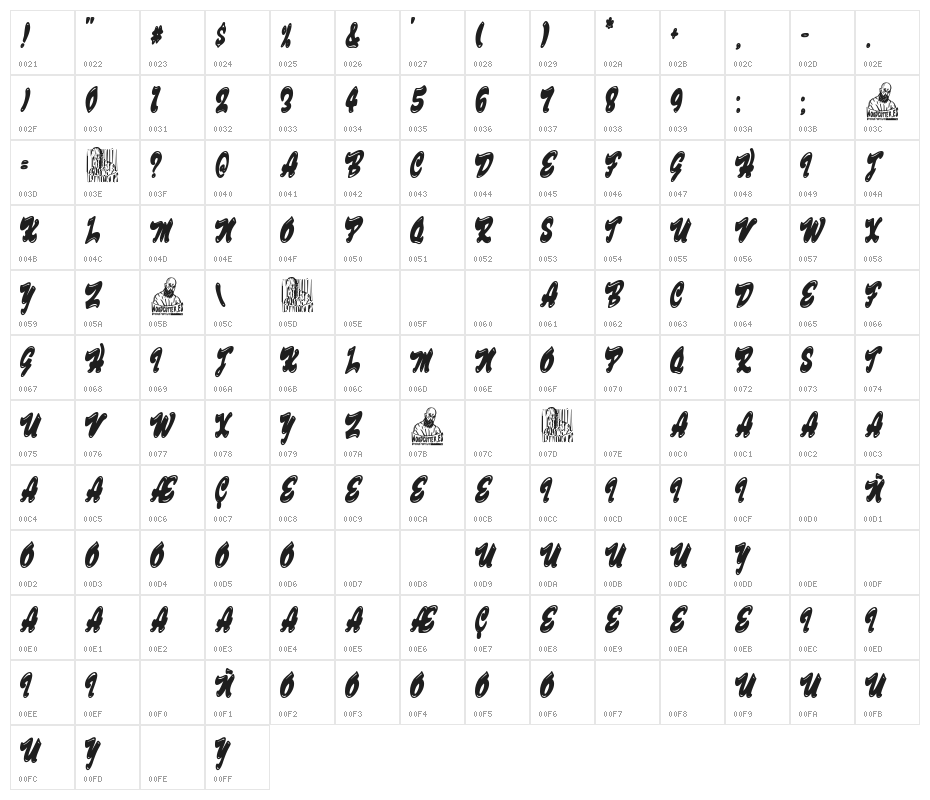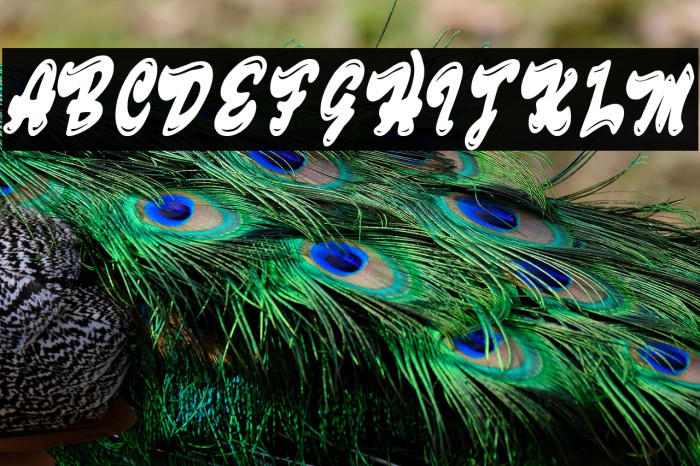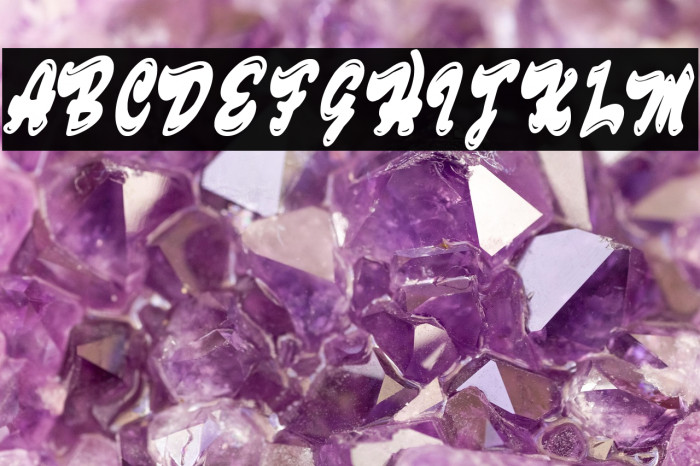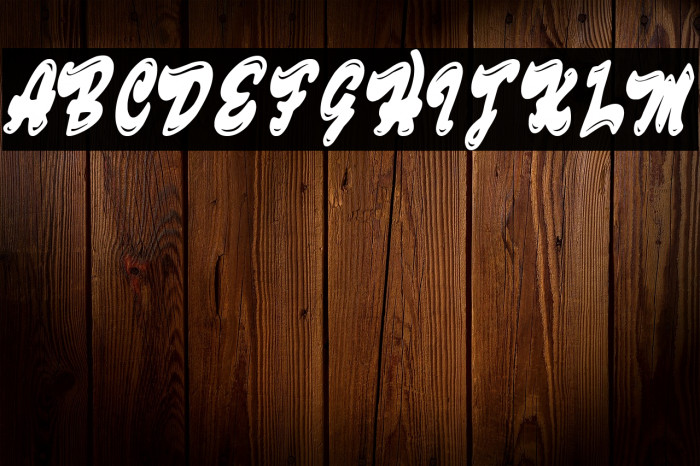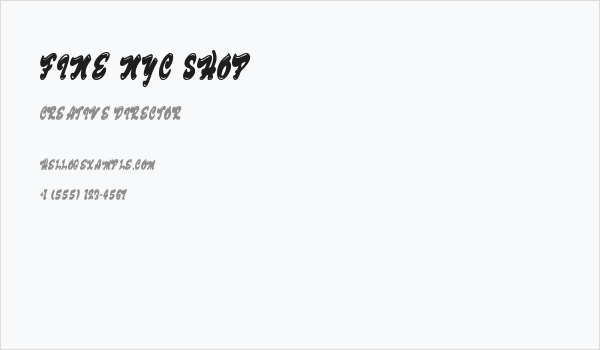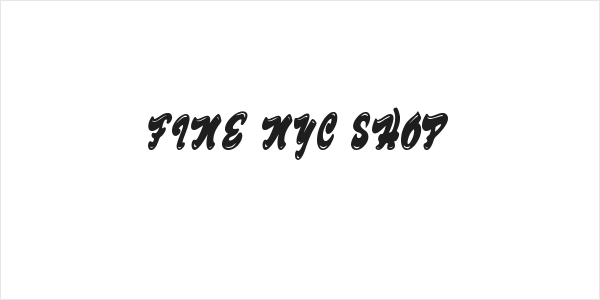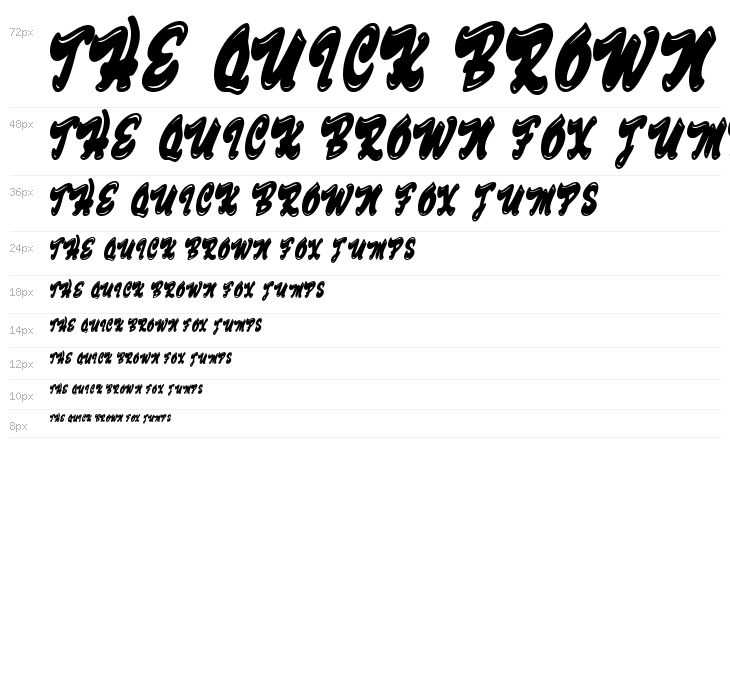
Fine NYC Shop Font
Fine NYC Shop Description
Bold, decorative script font with a playful and dynamic style, featuring thick strokes and high contrast.
| Use Case | Logos, Headlines |
| Proposed Projects | Logos, posters, branding, headlines. |